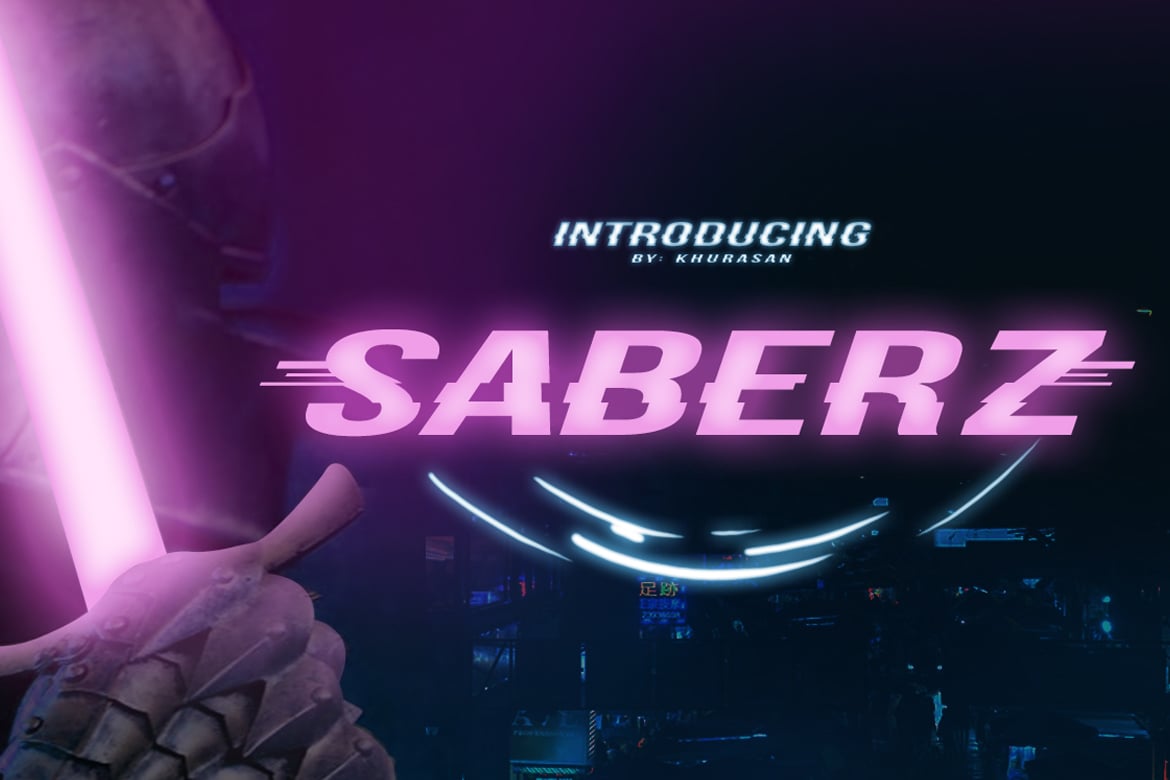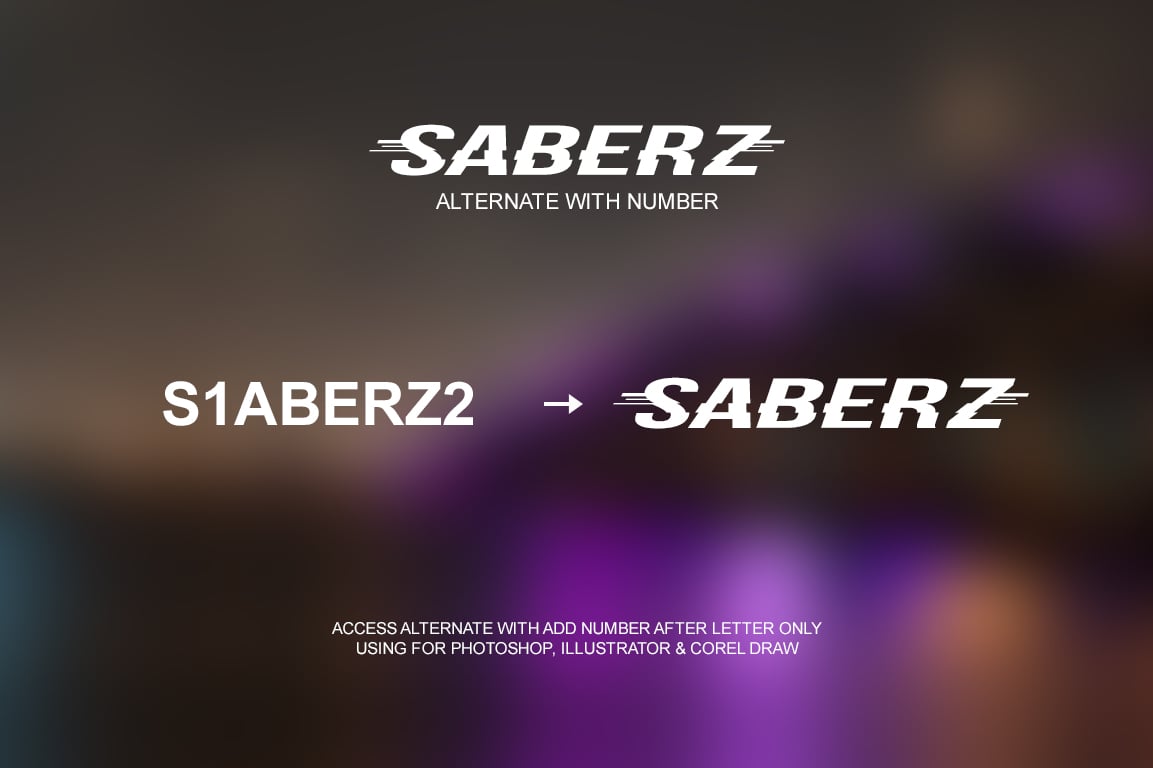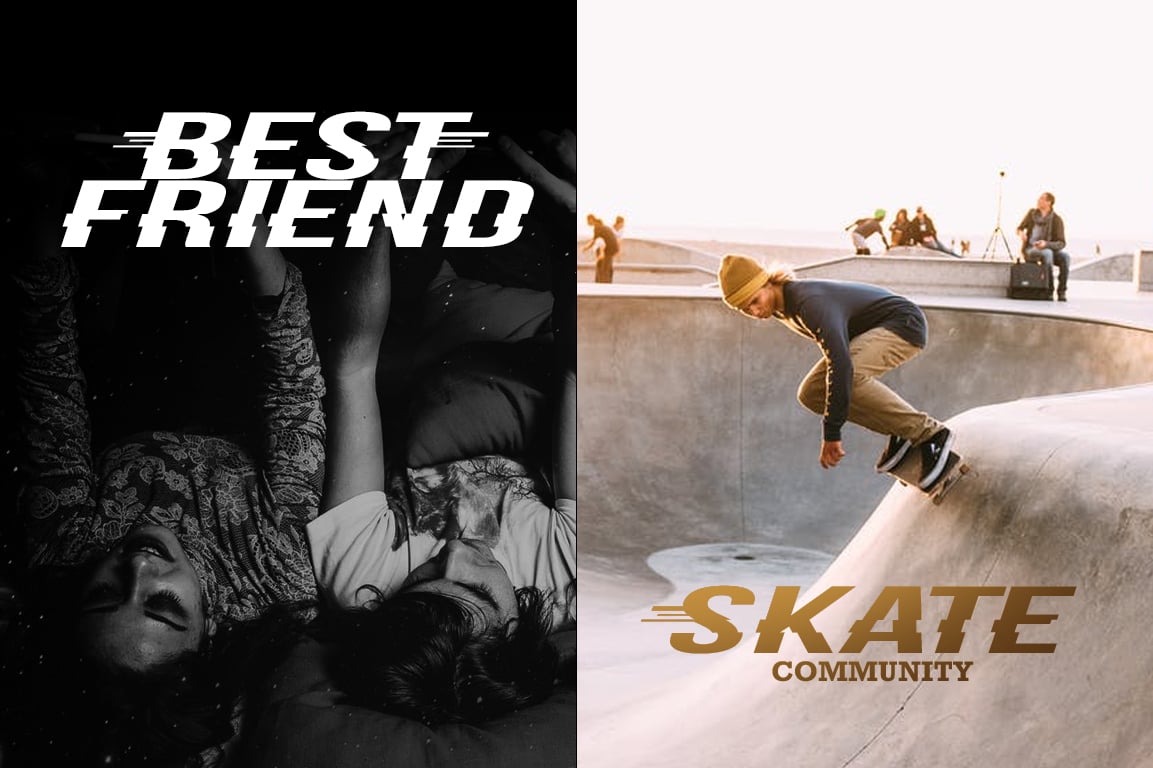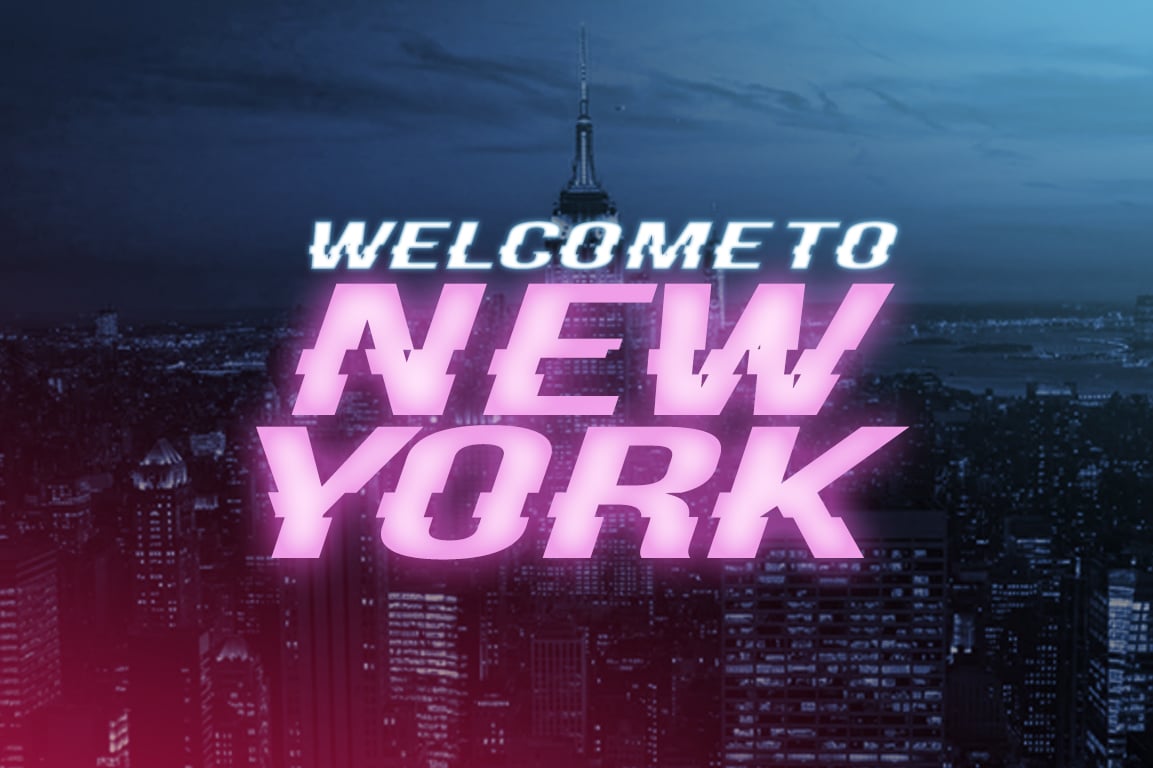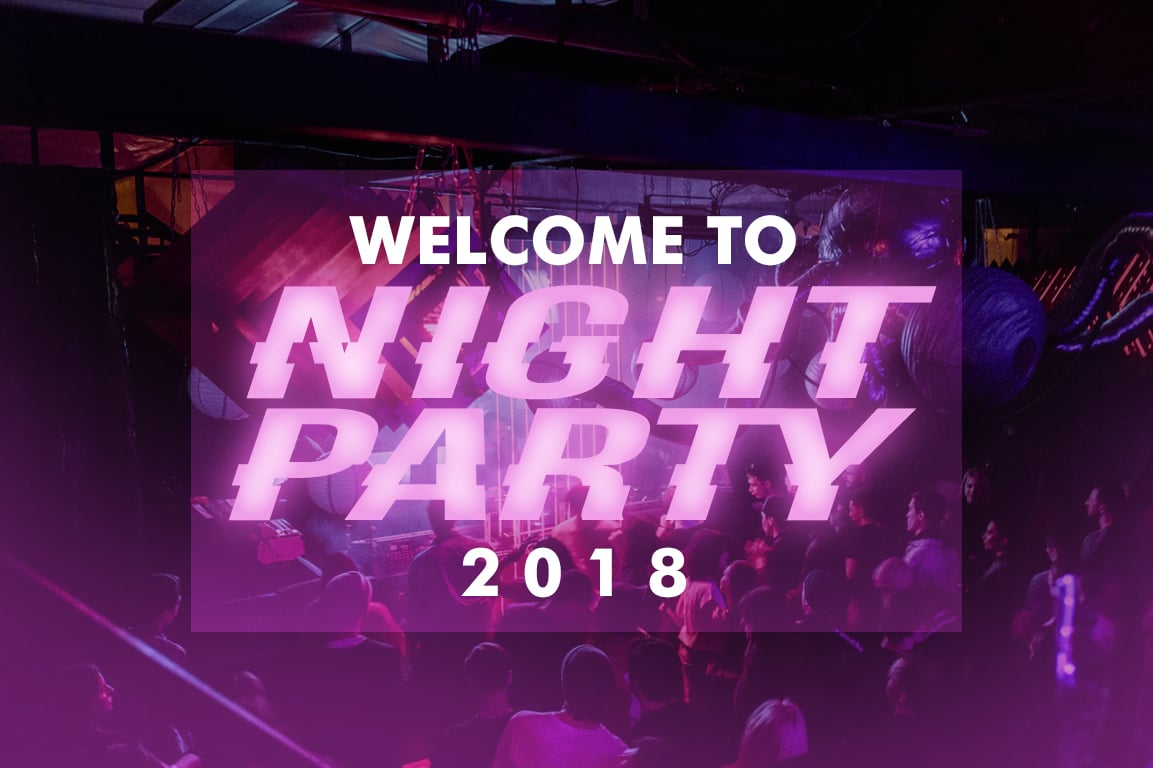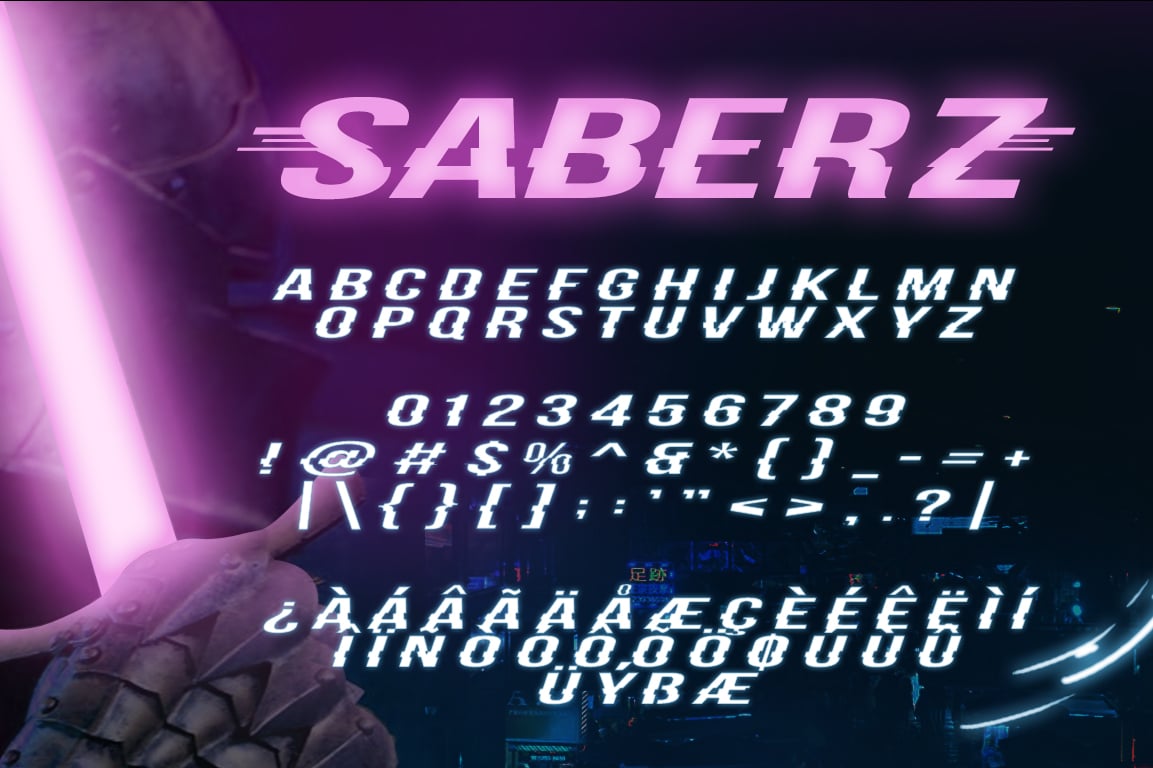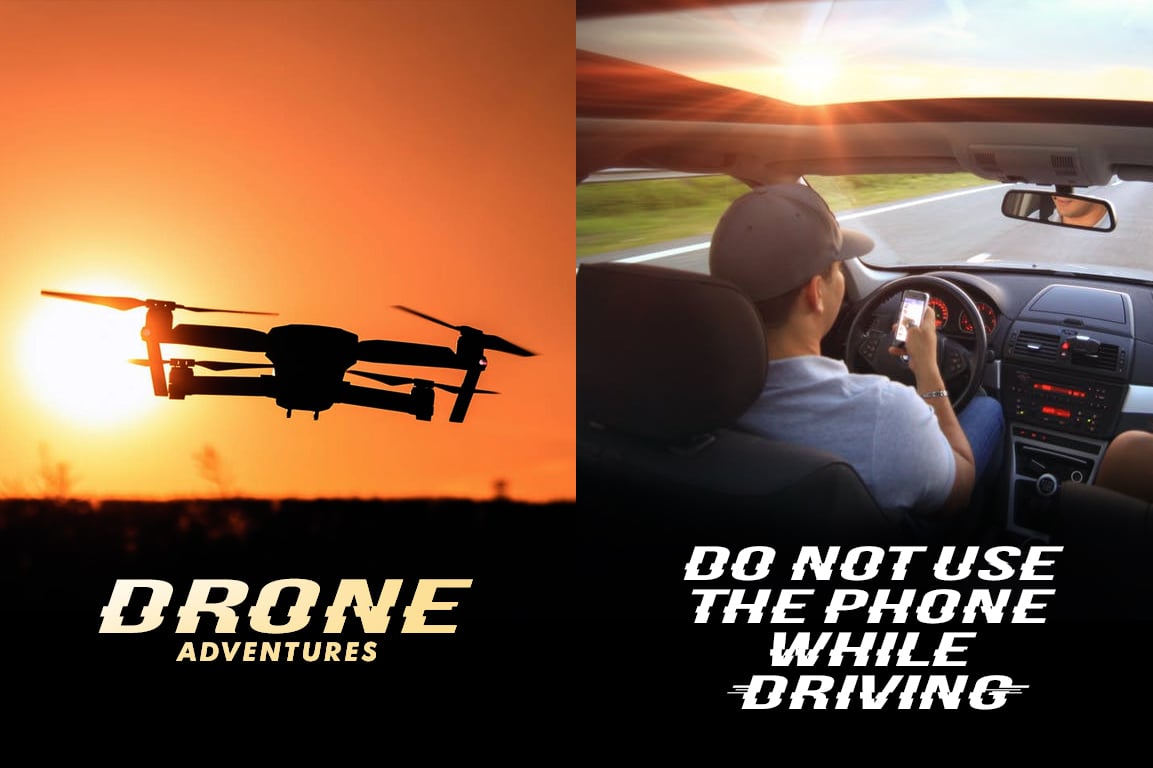
Saberz Font
Saberz font is a sans serif type of bold and italic type. Saberz in the form of horizontal pieces like glitch effect. Saberz font it’s perfect for , poster, logo, magazine, cover, banner, tshirt and headers, or even large-scale artwork.